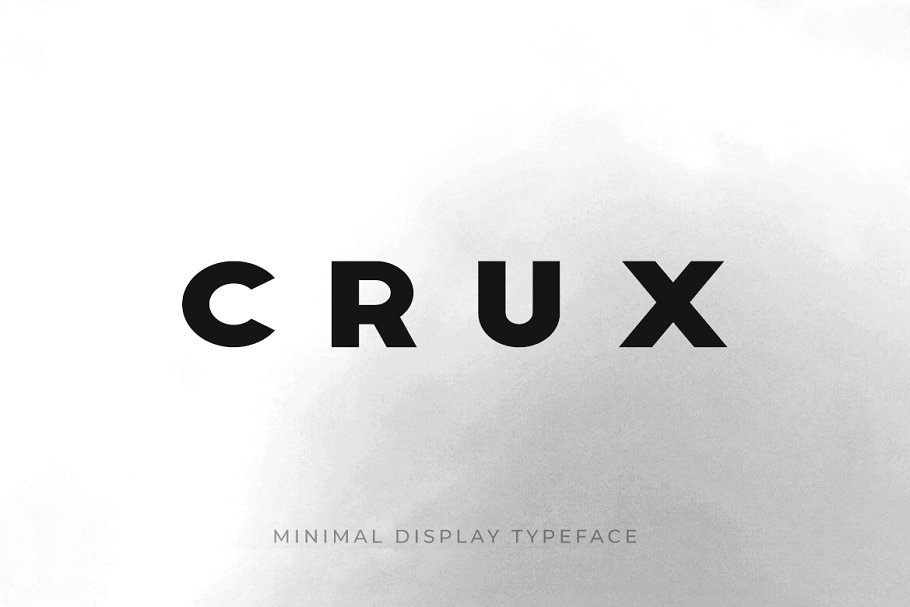
Crux Font
Crux Font is perfect for critical decision-making consultancies, pivotal moment campaigns, crisis management firms, turning point communications, strategic consulting services, and breakthrough innovation branding. Its decisive character makes it ideal for emergency response organizations, critical care medical services, pivotal research institutions, strategic military communications, crisis intervention programs, and any project requiring crucial importance with decisive clarity and strategic significance.
This font is exciting because it embodies the essence of critical moments and pivotal decisions while delivering exceptional functionality for high-stakes communications that demand absolute clarity and immediate understanding. The precisely engineered letterforms reflect the urgency and importance of crucial situations, creating typography that commands attention and inspires confidence in audiences facing critical decisions and transformative moments.
The Crux Font family typically includes Light, Regular, Medium, and Bold weights with decisive alternates, strategic ligatures, and critical elements that enhance its pivotal personality. This comprehensive collection provides professionals with authoritative tools for creating impactful brand systems that maintain crisis credibility while offering flexibility for various strategic applications requiring immediate clarity and decisive communication.